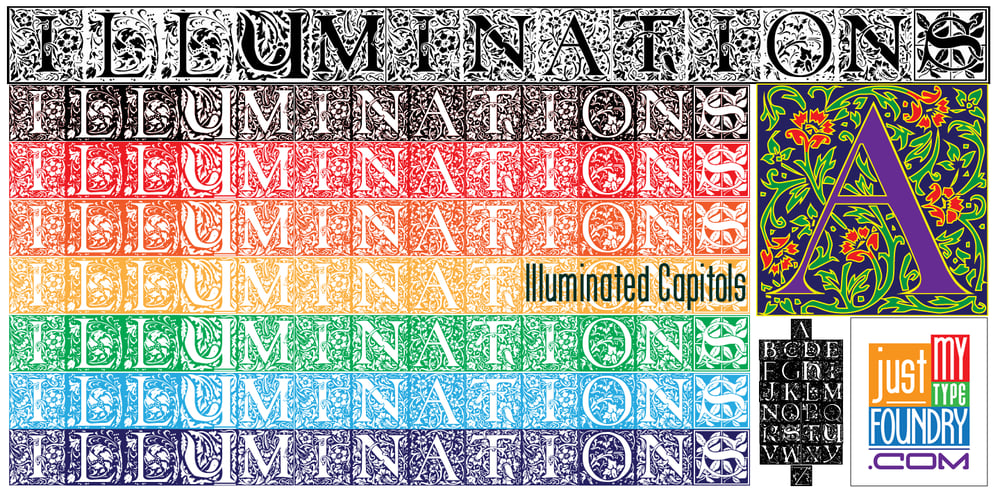
Illuminations Woodcut Font Family was designed by Randy Harris and published by Just My Type. Illuminations Woodcut contains 1 styles and family package options. Illuminations Woodcut is inspired by the decorated initial capitals of Medieval manuscripts… and an old book of clip art in which they were found. Try decomposing them in Adobe Illustrator and coloring the pieces or dropping color into them in Photoshop: you can get some stunning results. Caps and TrueType only.